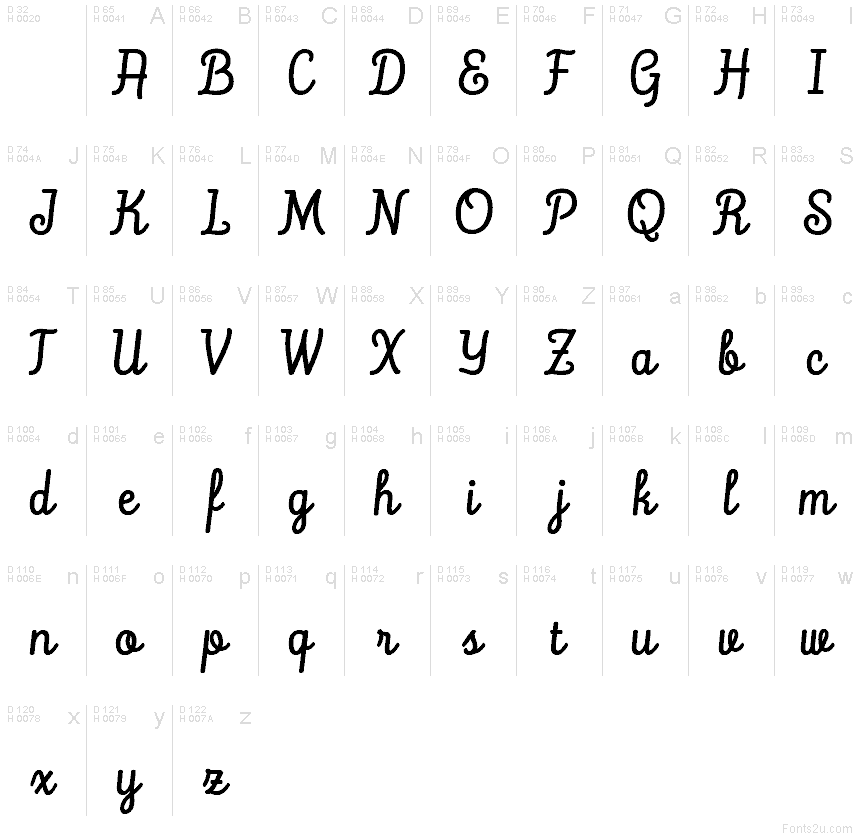
CS Dainty Regular Demo
CS Dainty font by Craft Supply Co. is a free calligraphy font characterized by its sleek and elegant appearance. With vintage-inspired elements and cursive touches, it offers a graceful flow that captures retro charm, making your every word appear more meaningful.